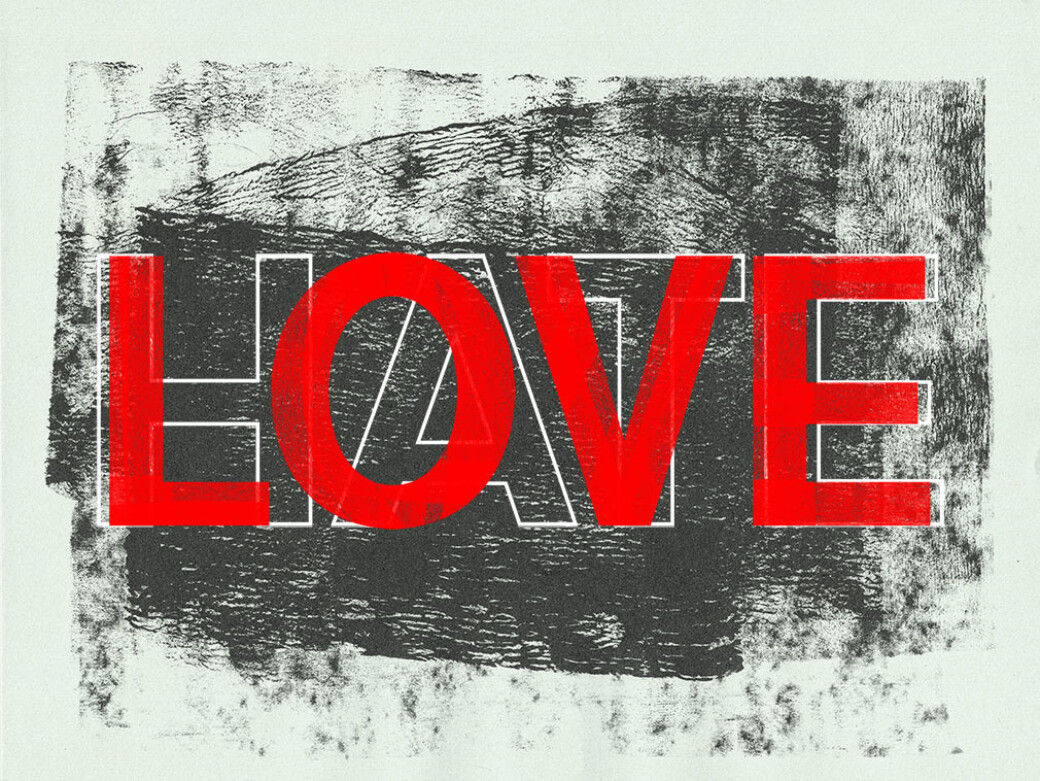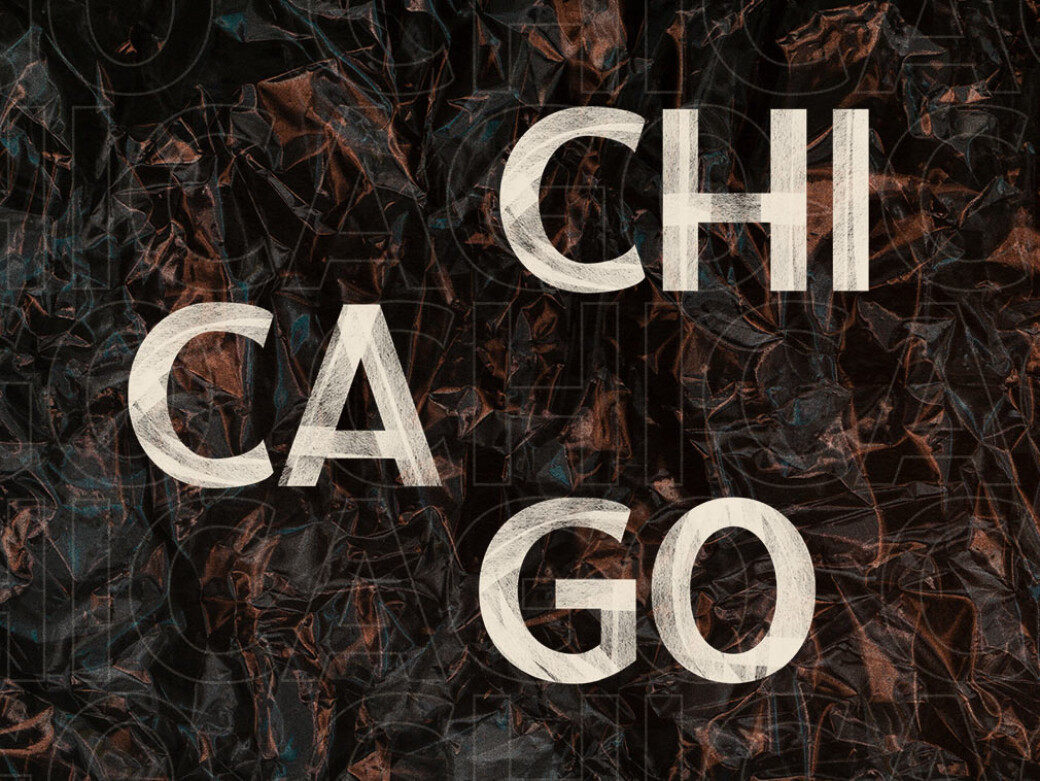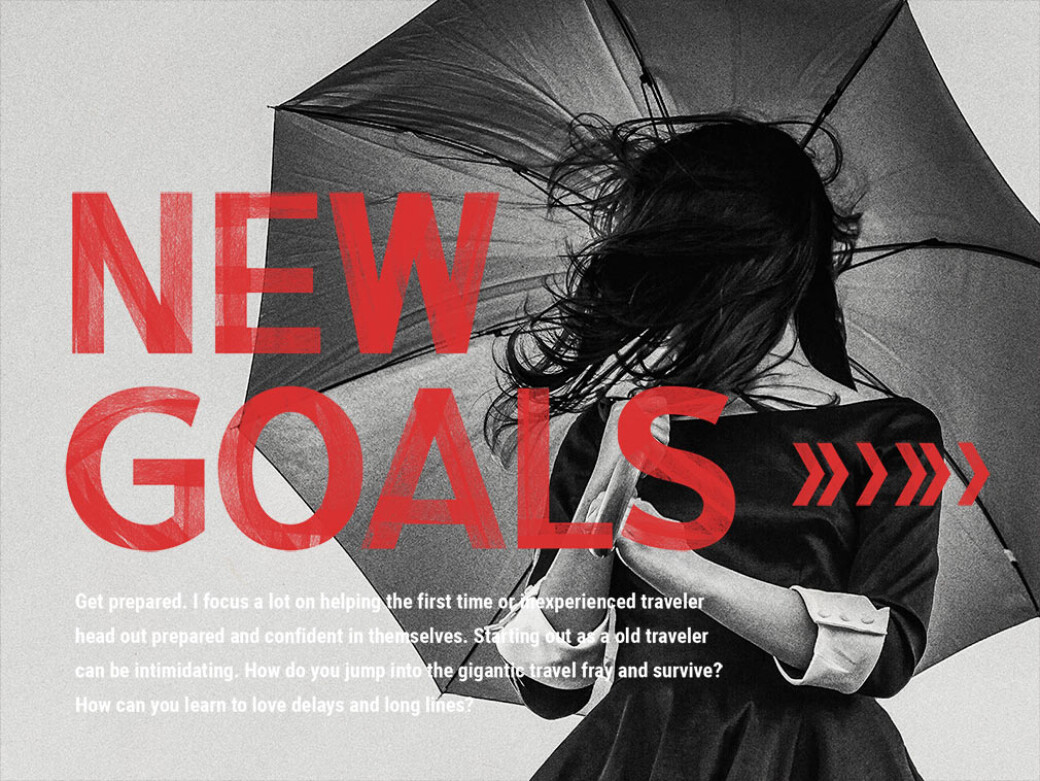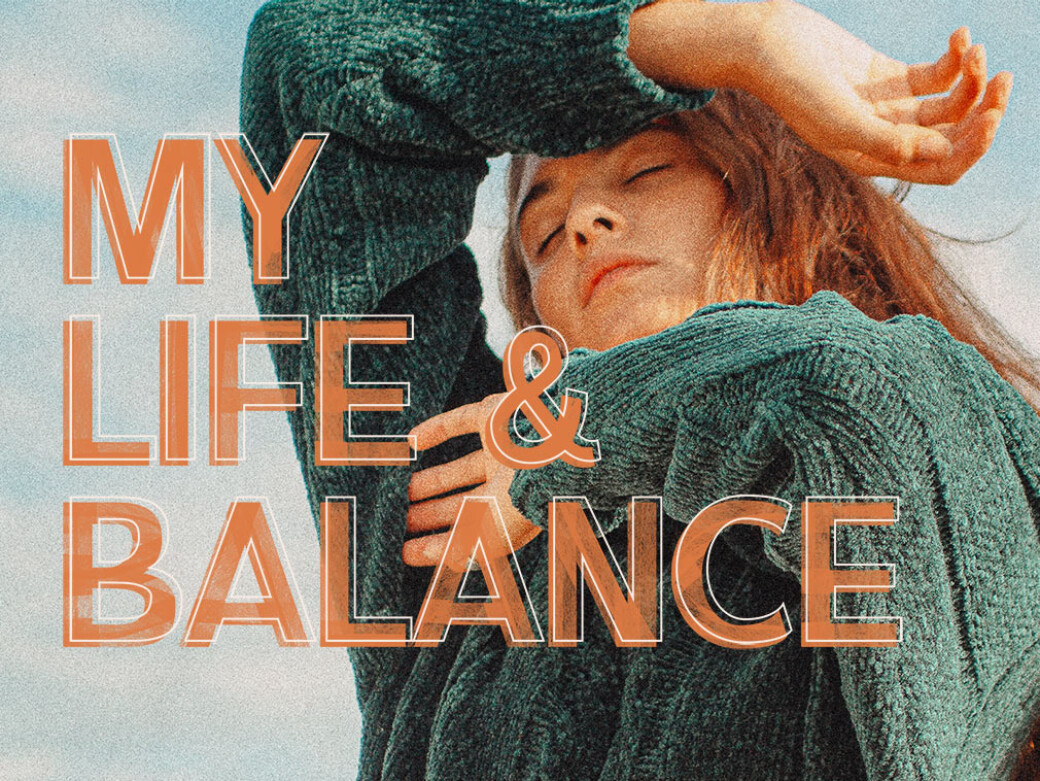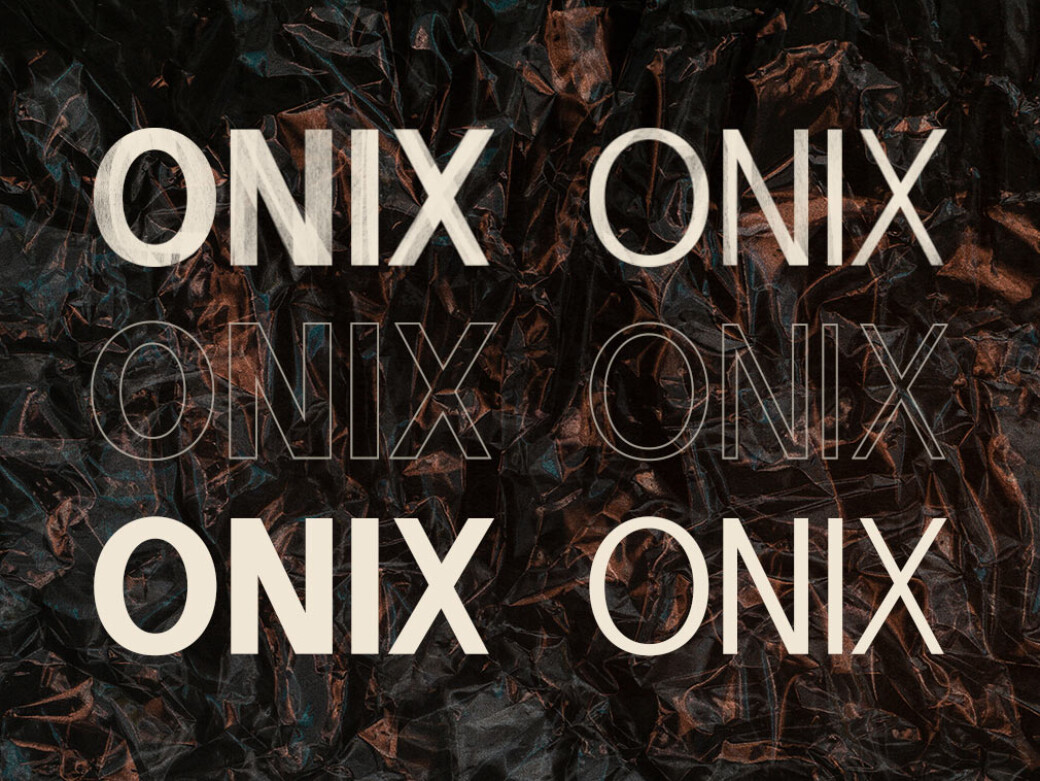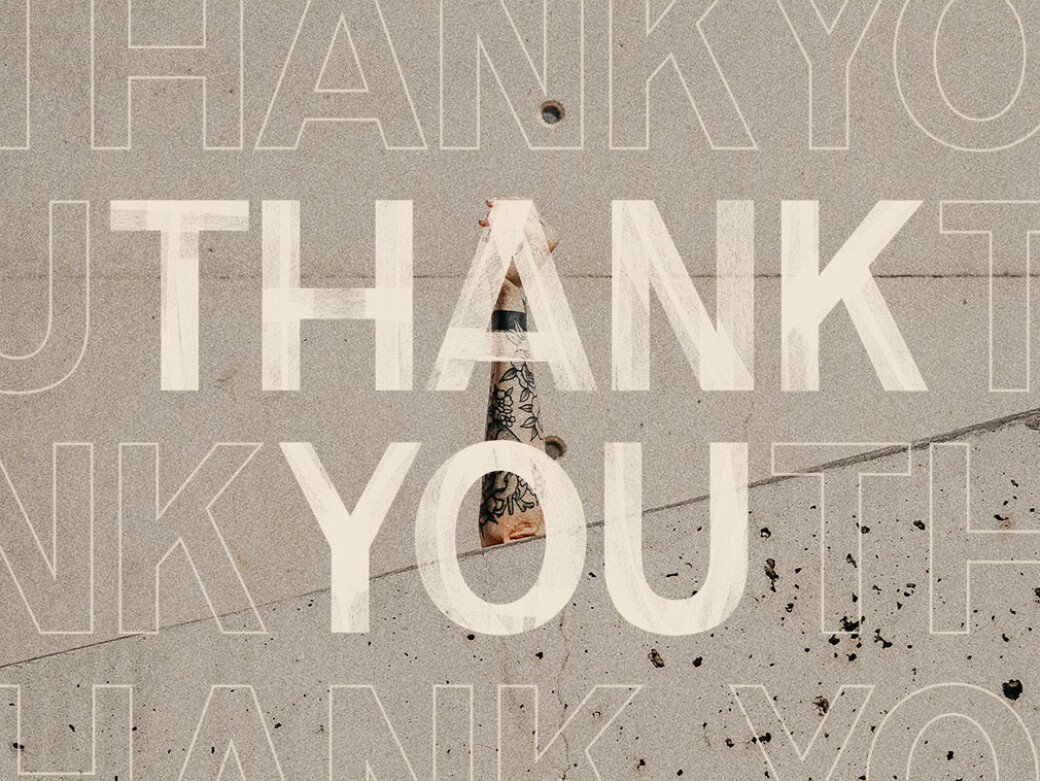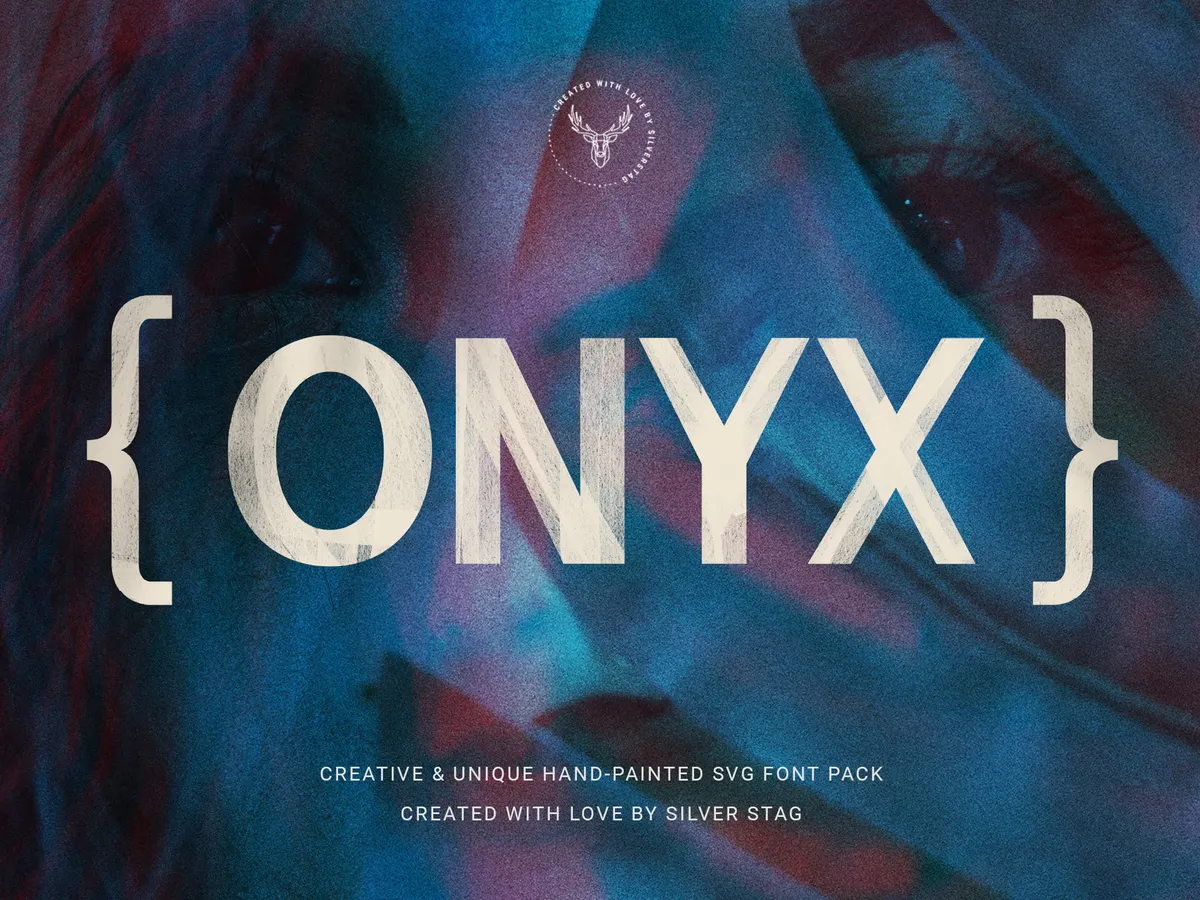
ONIX Hand-Painted SVG Font
They say, if you want to grow you have to step out of your comfort zone. This SVG font is a result of experiments and taking a shot at creating something unique and with a hand-painted touch.You get yourself 6 font options in one pack — 2 SVG hand-painted fonts in high resolution, 2 outlined fonts and 2 standard fonts you can use if your software doesn't support the SVG version. To use the hand-painted version you will need Photoshop CC 2017, Illustrator CC 2018, or Procreate 4.3 (or newer). As for the outline & standard versions, they don’t require any specific software and can be used on any computer and in any software and even your website.